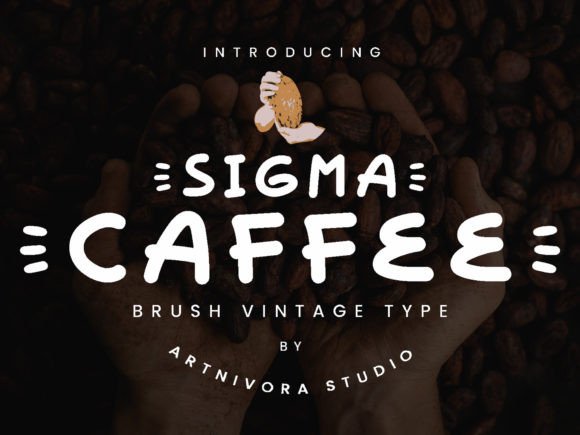
Step into a world of urban charm and nostalgic elegance with Sigmacaffe, a display font that captures the essence of vintage subway signs. Crafted by the skilled hands of artnivora.std, Sigmacaffe's bold and distinctive characters exude a sense of timelessness that will captivate your audience.
Unleash your creativity and watch as your designs take on a new life with Sigmacaffe. From eye-catching logos that command attention to captivating social media posts that resonate with your audience, this font is the ultimate tool for making a lasting impression.
Imagine your designs adorned with Sigmacaffe's bold strokes and clean lines. Your words will leap off the page, demanding attention and inspiring a sense of wonder. Transport your audience to a bygone era, where subway signs whispered tales of adventure and intrigue.
Sigmacaffe's versatility knows no bounds. Whether you're crafting sleek brochures that leave a lasting impression or creating magazine layouts that ooze sophistication, this font will elevate your designs to new heights. Its effortless charm will add a touch of class to any project, leaving your audience captivated by its timeless appeal.
With Sigmacaffe, you'll unlock a font that's not just visually stunning but also incredibly user-friendly. Its intuitive design makes it a joy to work with, allowing you to focus on your creative vision without getting bogged down in technicalities. Experience the ease of use and let Sigmacaffe's intuitive nature guide you towards design brilliance.